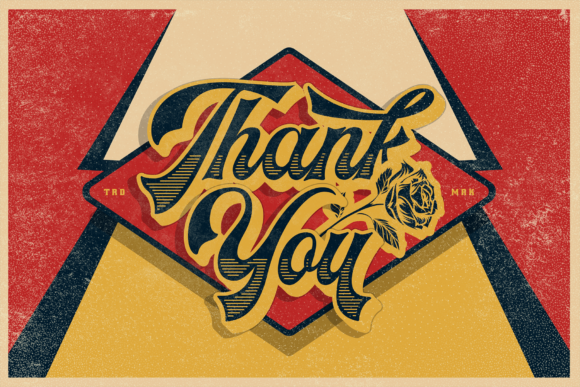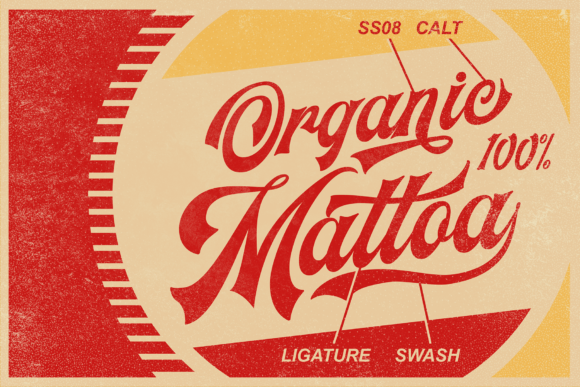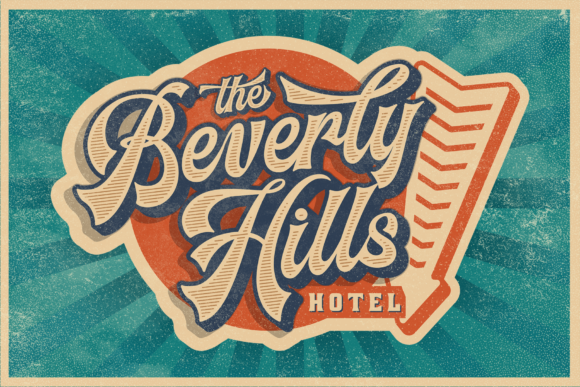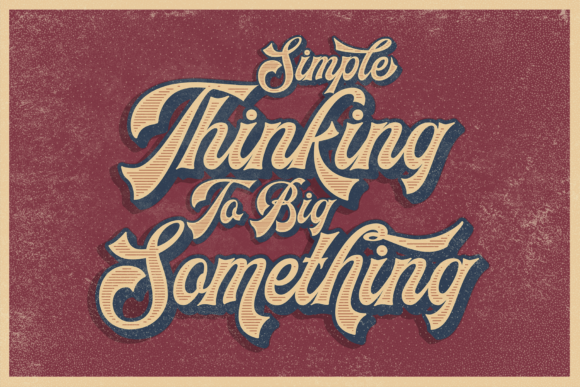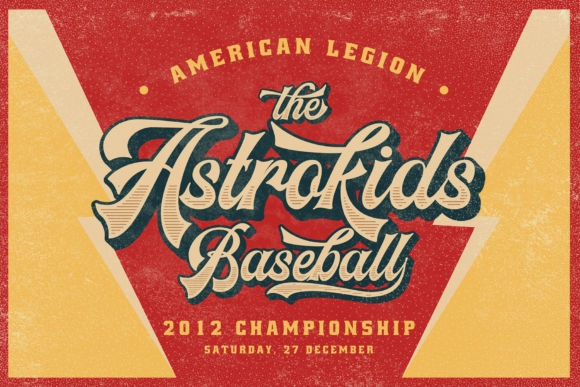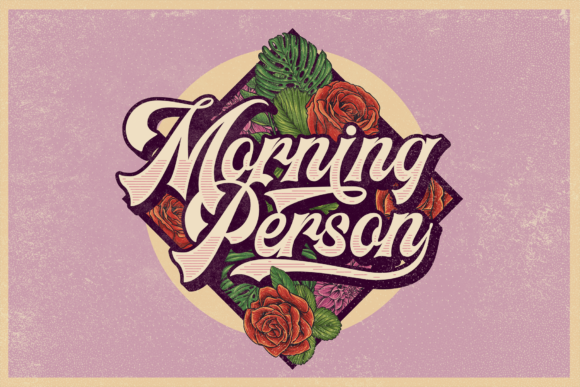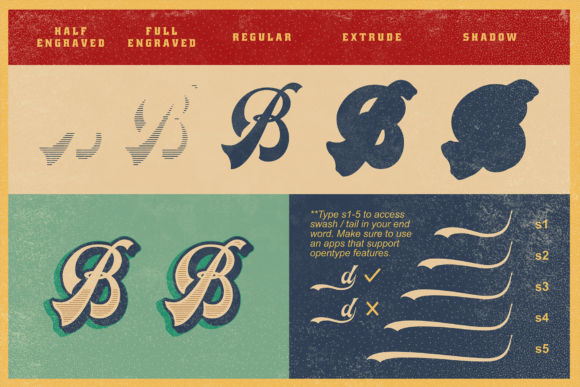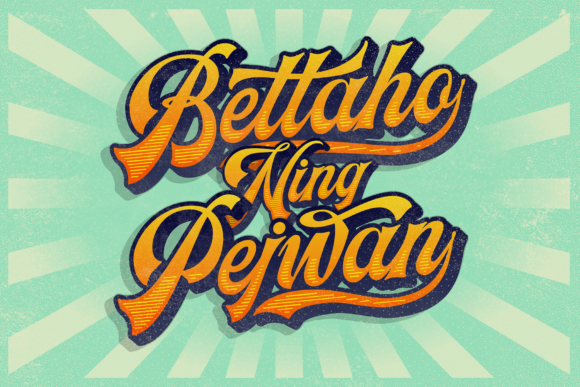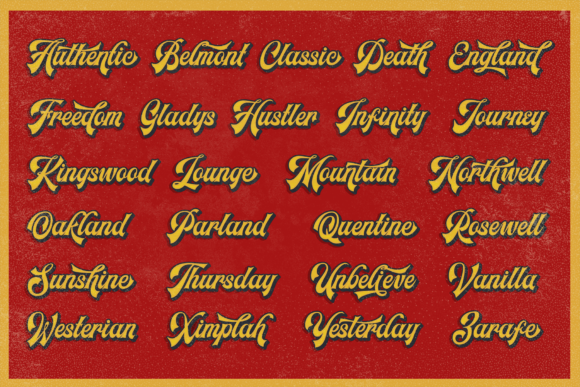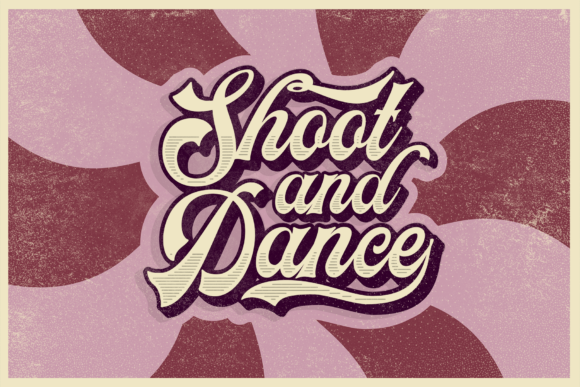
Headster Family Font
About Headster Family Font
Headster is a bold script typeface, inspired by old vintage label designs.
It comes with 5 unique fonts that can be layered, to create a unique look and feel each time. It comes also including many alternates. The font is perfect for a large range of different types of designs, such as Flyers, Logos, Badges, Packaging, Invitations and much more.